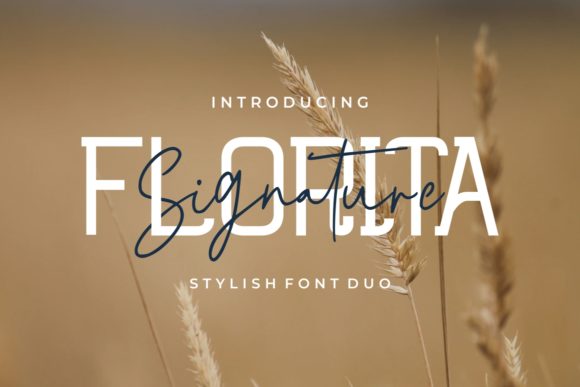
Journey into the world of Florita Duo Font, a match made in font heaven! This captivating font duo seamlessly blends the elegance of a flowing script with the power of a bold sans serif font. It's a combination that will ignite your creativity and bring your designs to life.
The Florita Duo Font is a visual masterpiece. Let the graceful script dance across your designs, adding a touch of whimsy and charm. Its flowing curves and delicate strokes will captivate your audience, drawing them into your visual narrative.
But don't let the sweetness of the script fool you. The bold sans serif font provides a sturdy foundation, adding strength and stability to your designs. Its clean lines and geometric shapes create a modern and sophisticated look that perfectly complements the script's playful nature.
This dynamic duo is perfect for a wide range of design projects. Create stunning logos and branding that leave a lasting impression, or use them to craft eye-catching social media graphics and website designs. The possibilities are endless!
With Florita Duo Font, you'll have the power to evoke emotions, capture attention, and communicate your message with clarity and style. Whether you're a seasoned designer or just starting out, this font duo is your secret weapon for creating captivating designs that will make your projects shine.
So, seize the opportunity to embrace the beauty of Florita Duo Font and unleash your creativity. Take your designs to new heights and leave a trail of visual magic wherever you go. Step into the world of Florita Duo Font today and let your imagination soar!